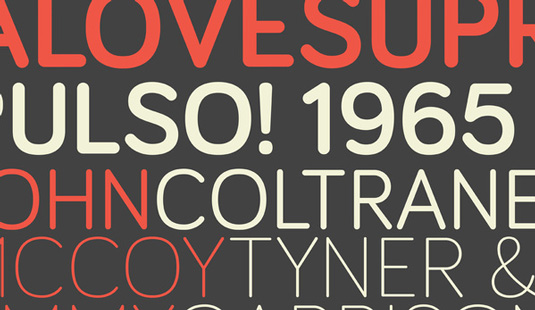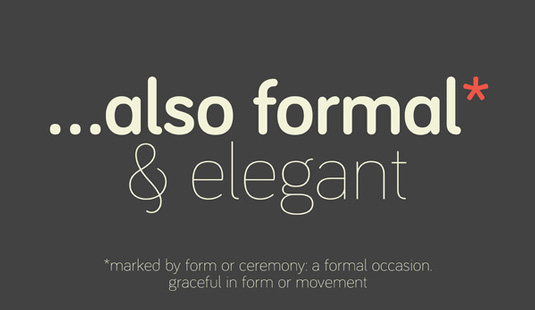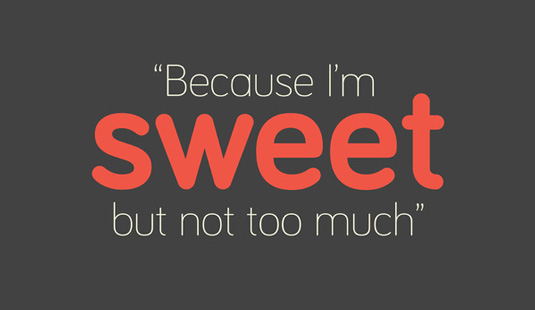
Font of the day: Bariol
Every day we showcase the best fonts on the web. Today it's Bariol by atipo, which is free to download.
Bariol by Atipo
Designed by Spanish studio Atipo, Bariol has already proved a massive hit with designers across the board. Crafted with versatily and readability in mind, the brand new, slightly rounded typeface is available in four weights.
The font is readable even at small scales and can be used as corporate typography, packaging design, infographics and even editorial design. You can download Bariol regular and italic for free by just 'paying' with a tweet or you can get the complete font family from as little as €3.